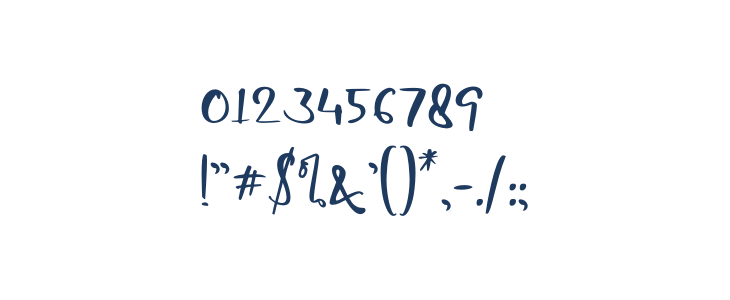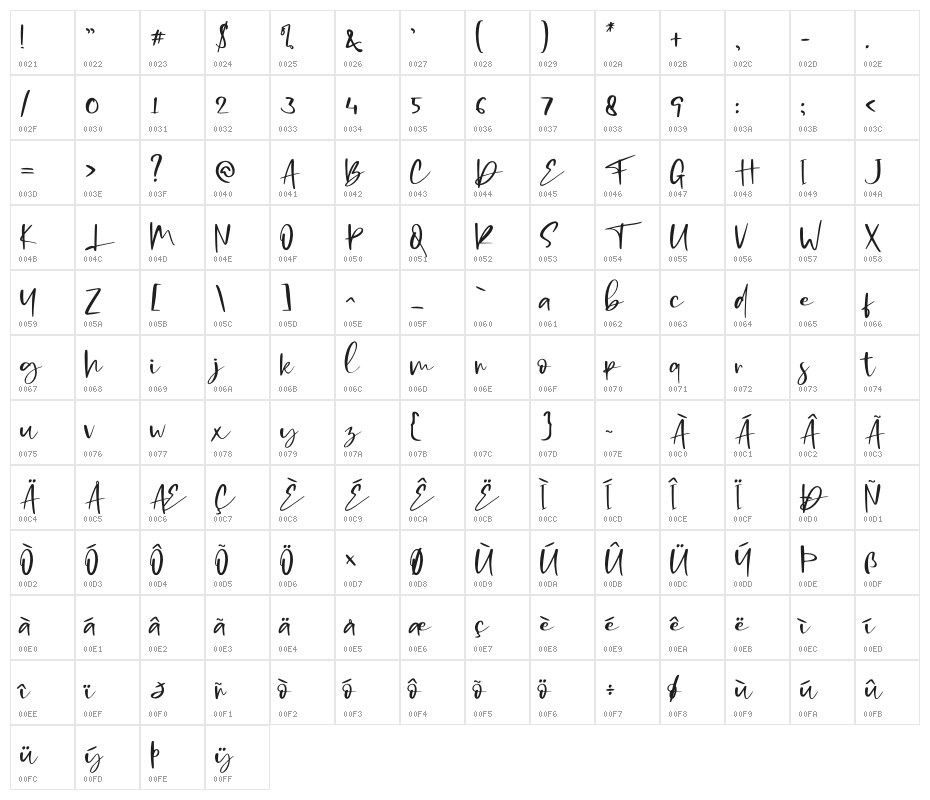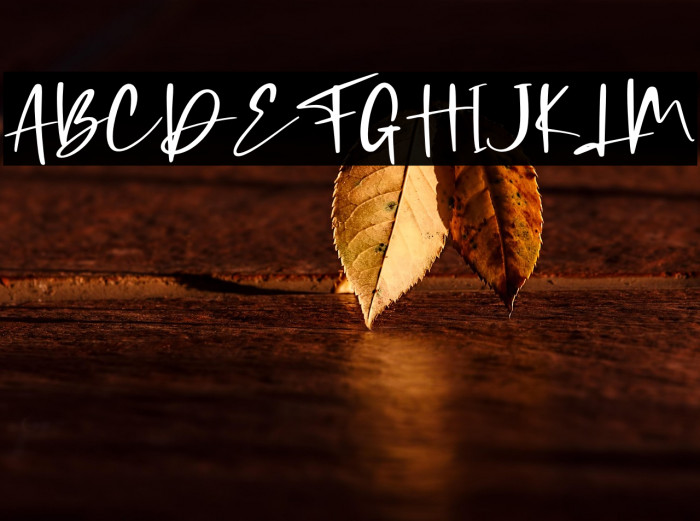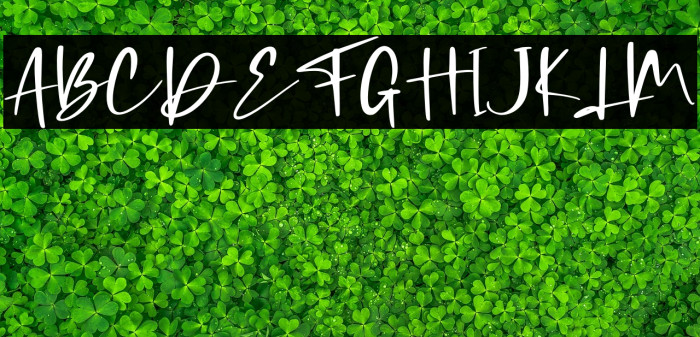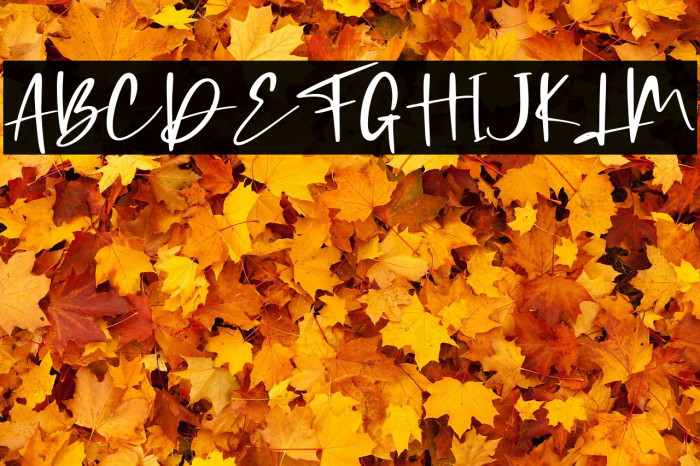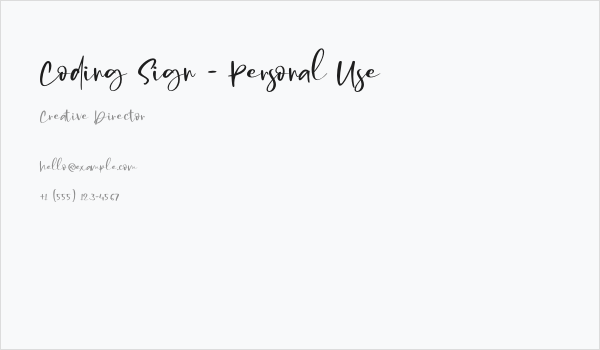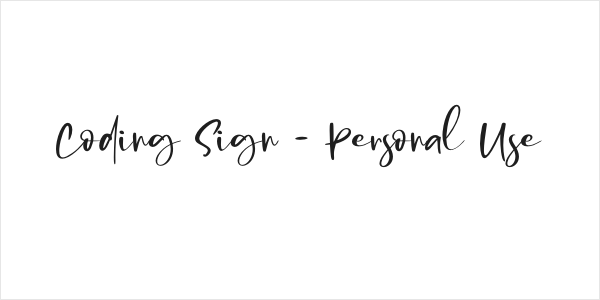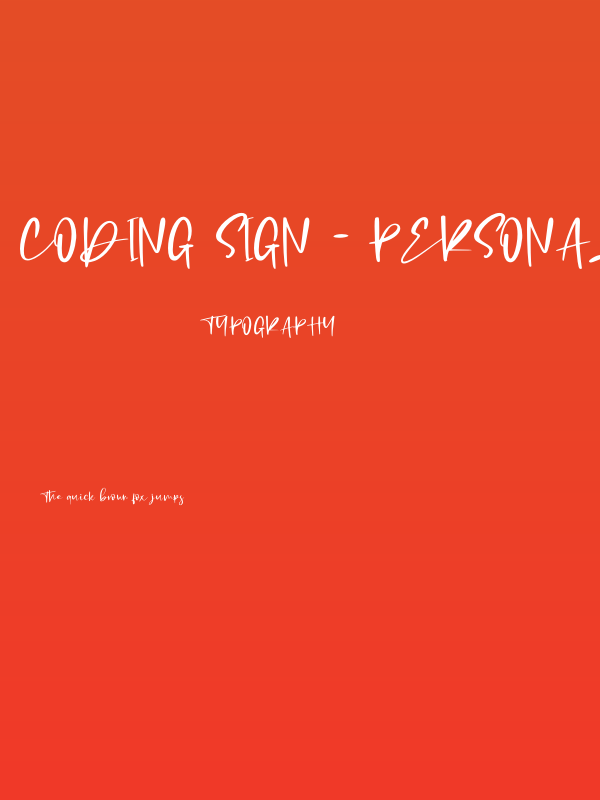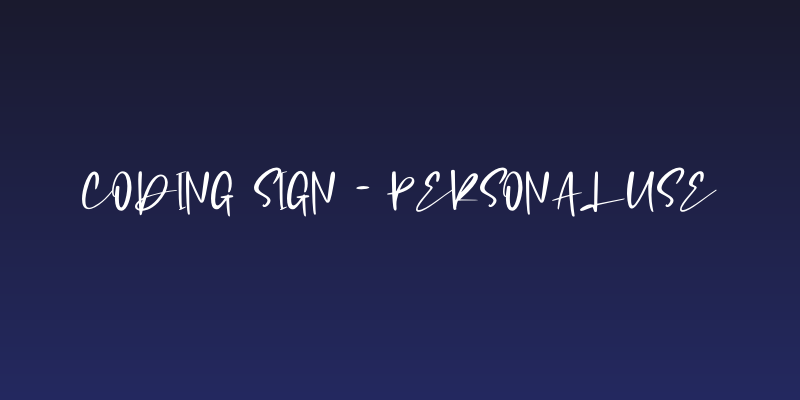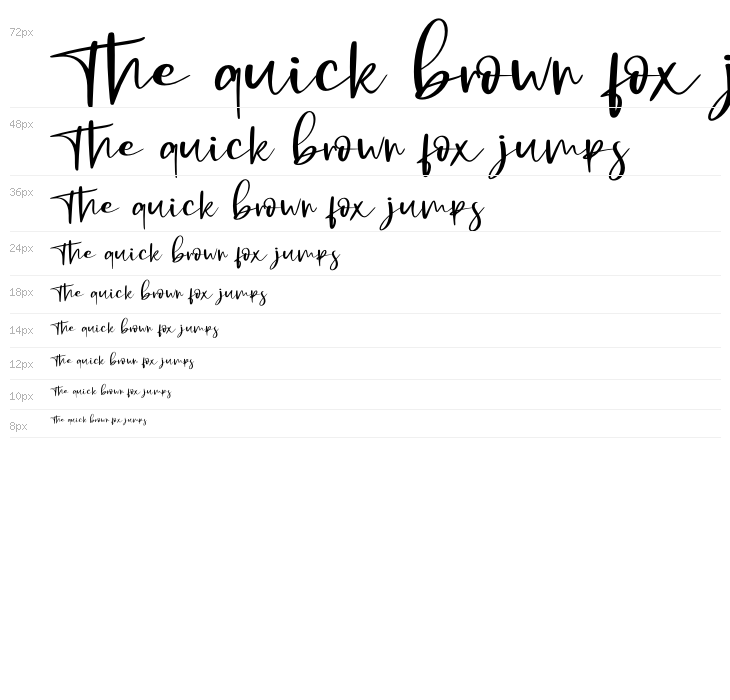
Coding Sign - Personal Use Font
Coding Sign - Personal Use Description
This font features a lively and expressive handwritten style, characterized by its fluid and dynamic strokes. The uppercase letters are bold and slightly slanted, giving a sense of movement and energy. The lowercase letters maintain a consistent flow, with some letters extending below the baseline, adding to its casual and informal appearance. The numerals are playful and match the overall aesthetic, while the special characters are creatively designed to complement the letterforms. This font exudes a personal and artistic touch, making it ideal for projects that require a human and approachable feel.
| Proposed Projects | Ideal for greeting cards, personal branding, social media graphics, and creative invitations. |